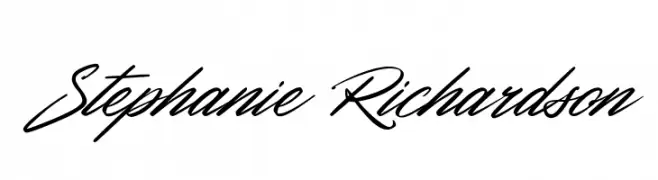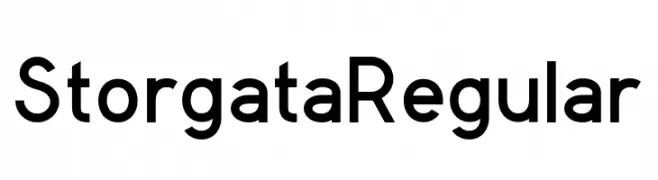
A fluid, cursive script font with a natural handwriting style.
A sophisticated, cursive script font with elegant, flowing characters.
A modern, geometric font with rounded edges and a futuristic style.
A playful, casual handwritten font with smooth, flowing lines and a friendly appearance.
A playful, handwritten-style font with consistent strokes and a casual feel.
A playful, stitched-pattern font with a handcrafted feel.
A playful, italicized font with a stitched pattern and bold strokes.
A bold, distressed font with a rugged, textured appearance.
A modern, geometric sans-serif font with clean lines and balanced proportions.
A bold, playful script font with a dynamic and informal style.